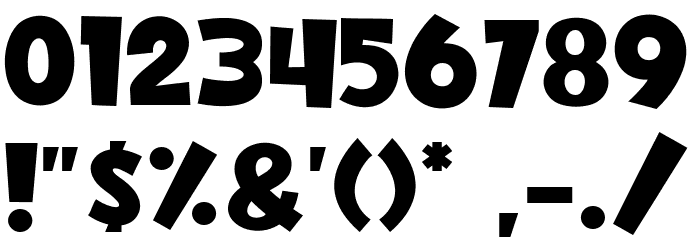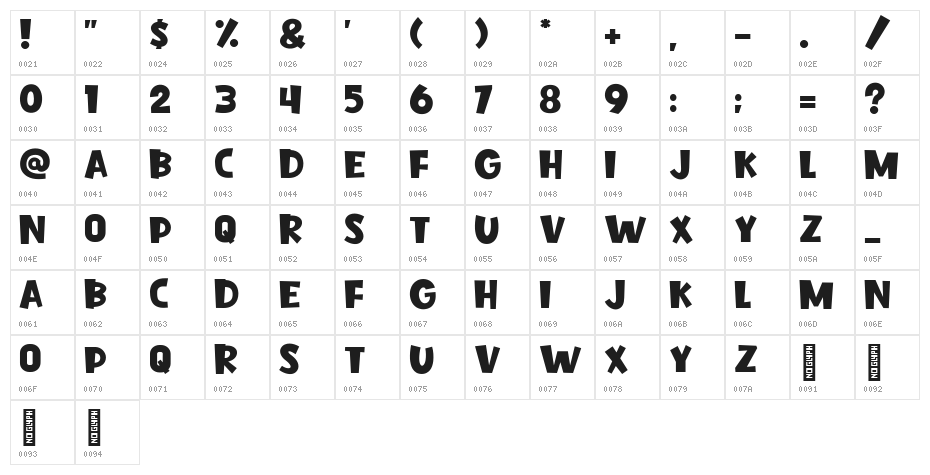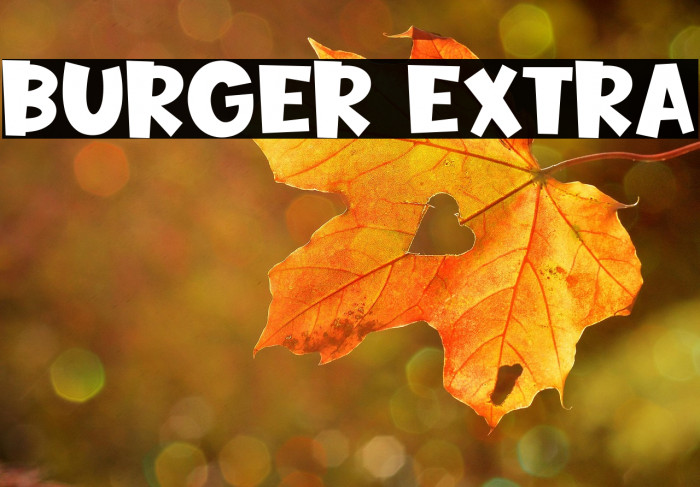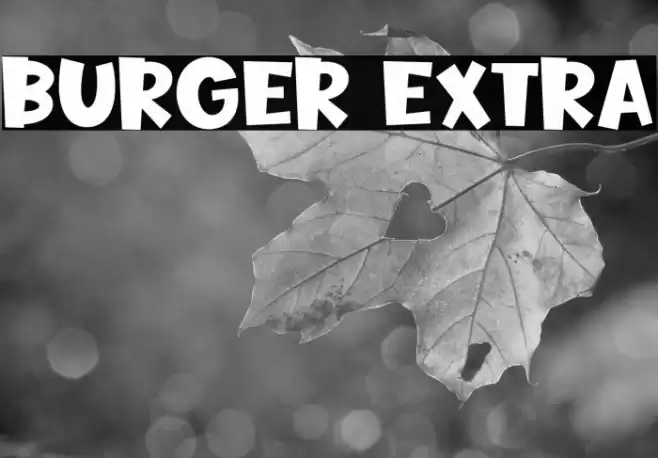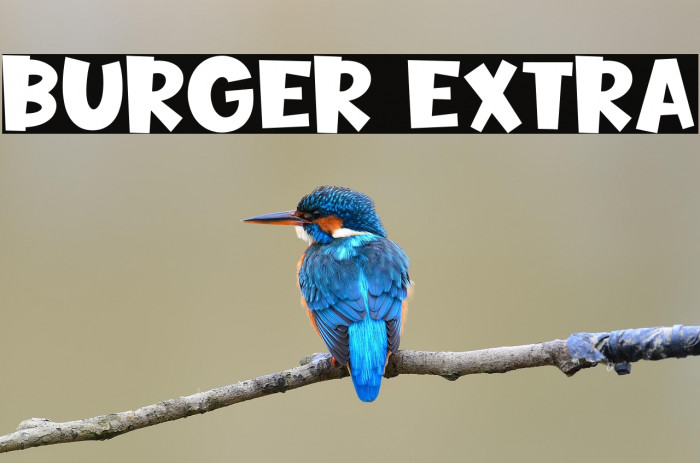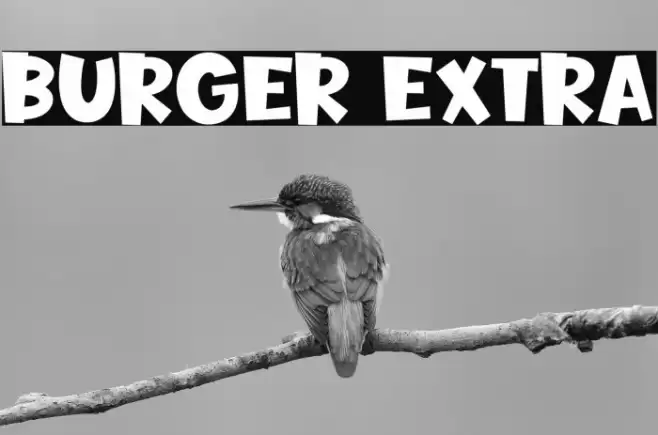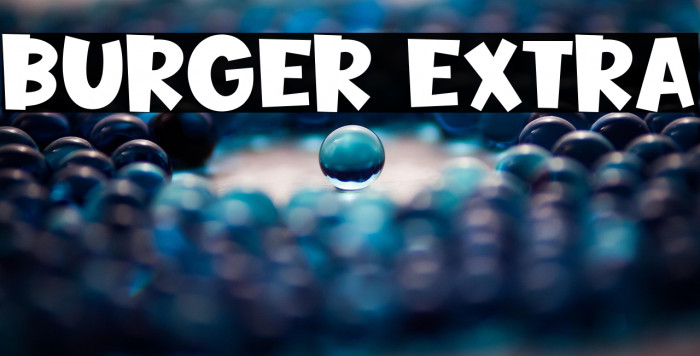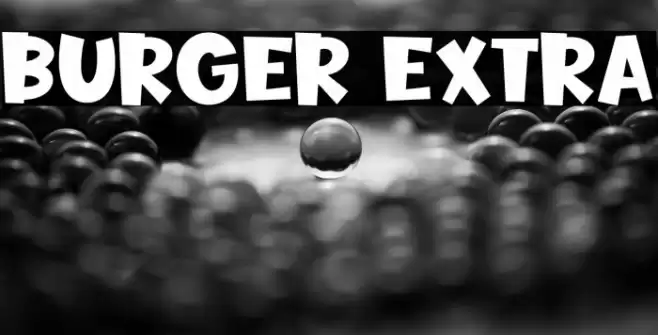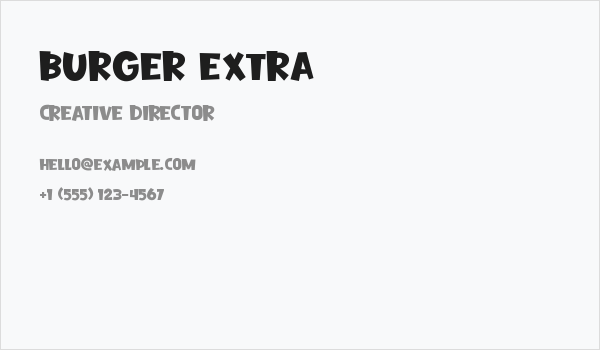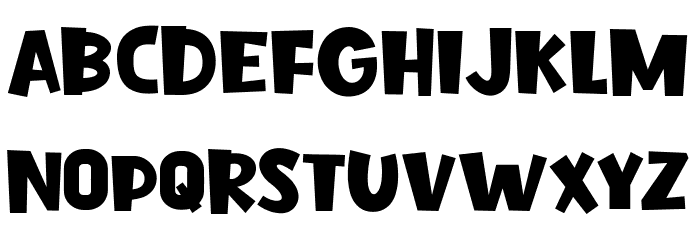
Burger Extra Font
Burger Extra Description
This font features a playful and bold design with exaggerated curves and a slightly irregular shape, giving it a whimsical and fun appearance. The characters are thick and robust, making them highly visible and impactful. The style is reminiscent of comic or cartoon lettering, with a lively and energetic feel. The uppercase and lowercase letters maintain a consistent style, while the numbers and special characters complement the overall aesthetic. This font is ideal for projects that require a touch of humor and creativity, such as children's books, playful branding, or eye-catching posters.
| Proposed Projects | Children's books, playful branding, eye-catching posters, comic strips. |